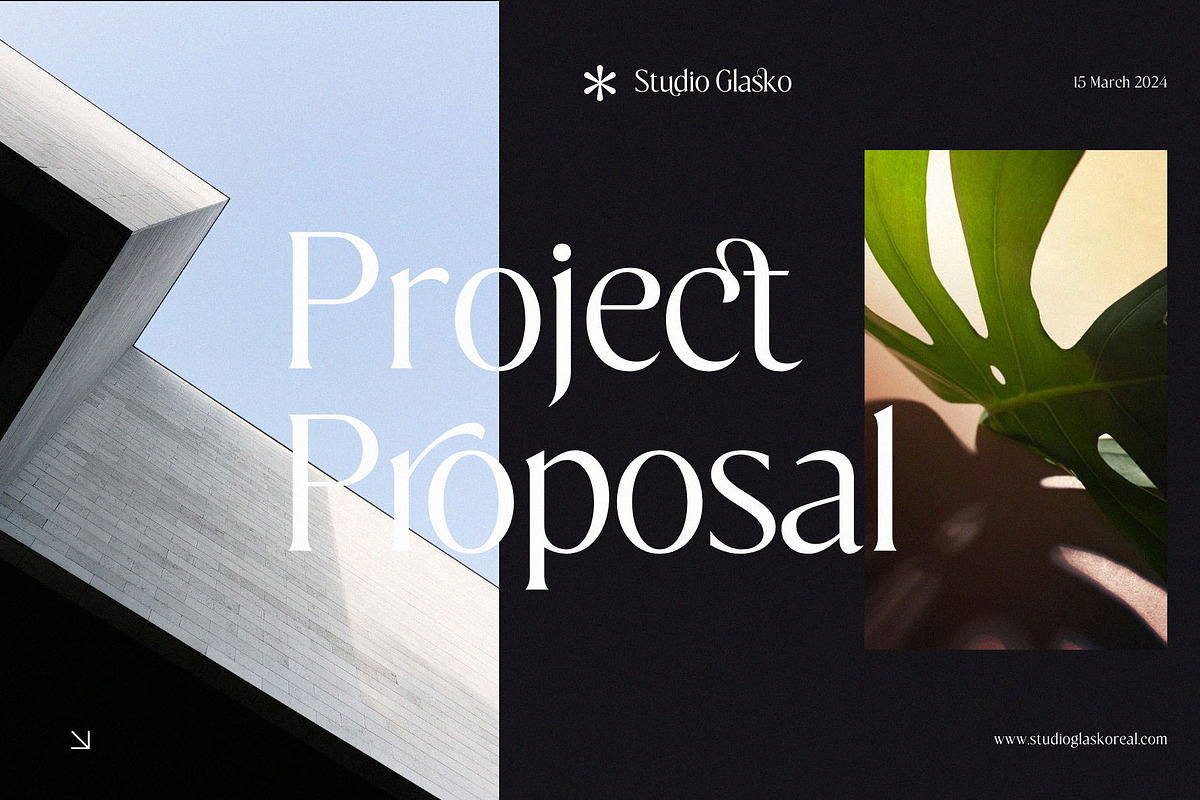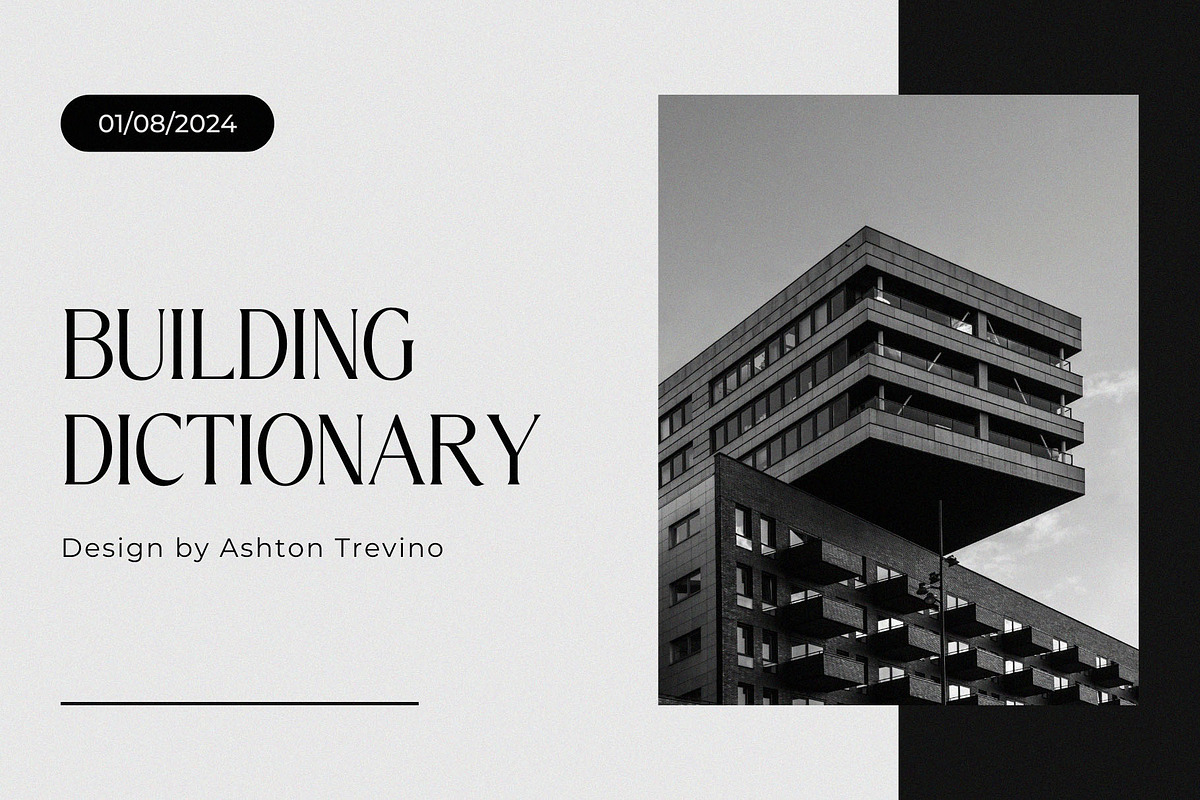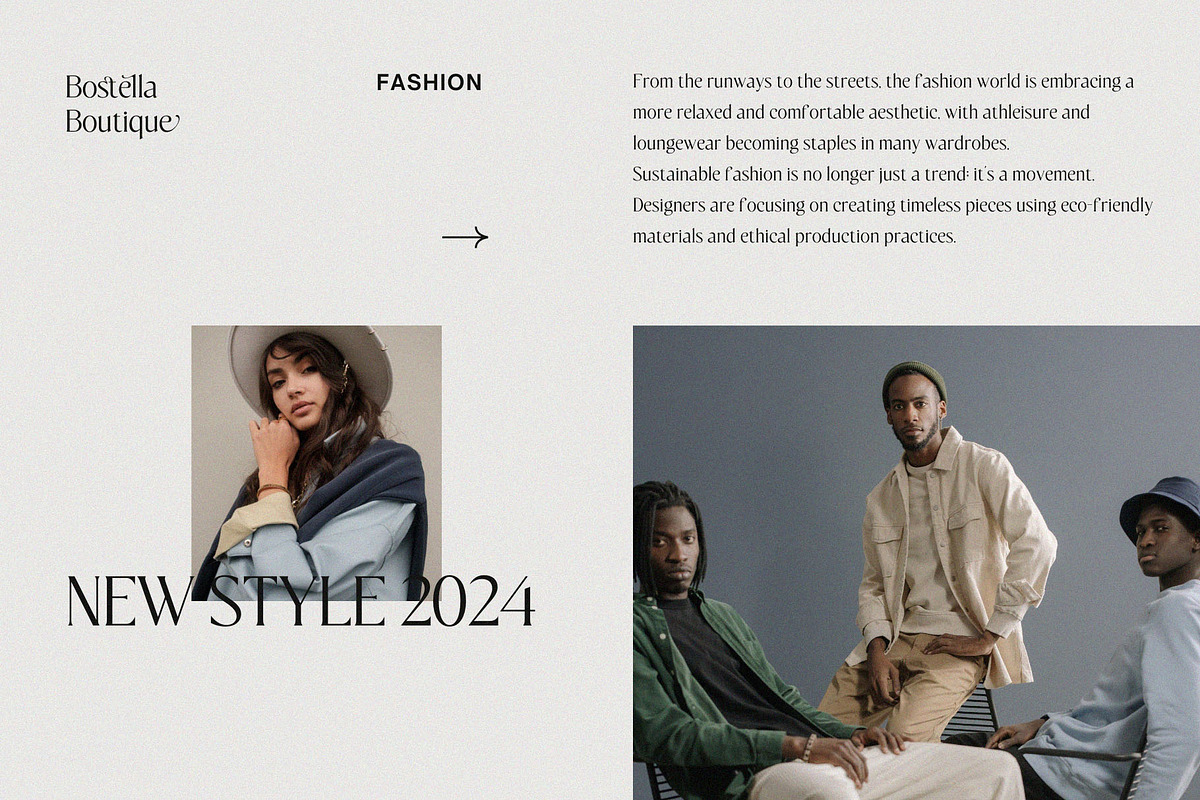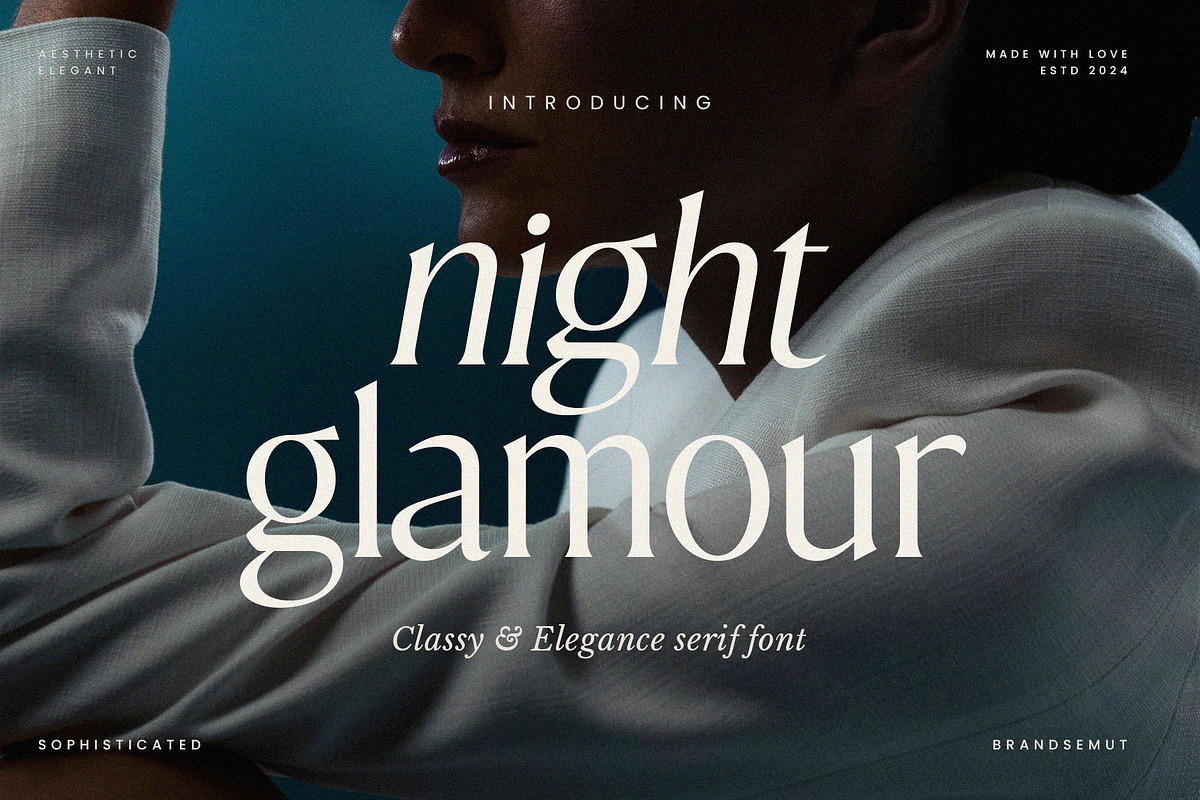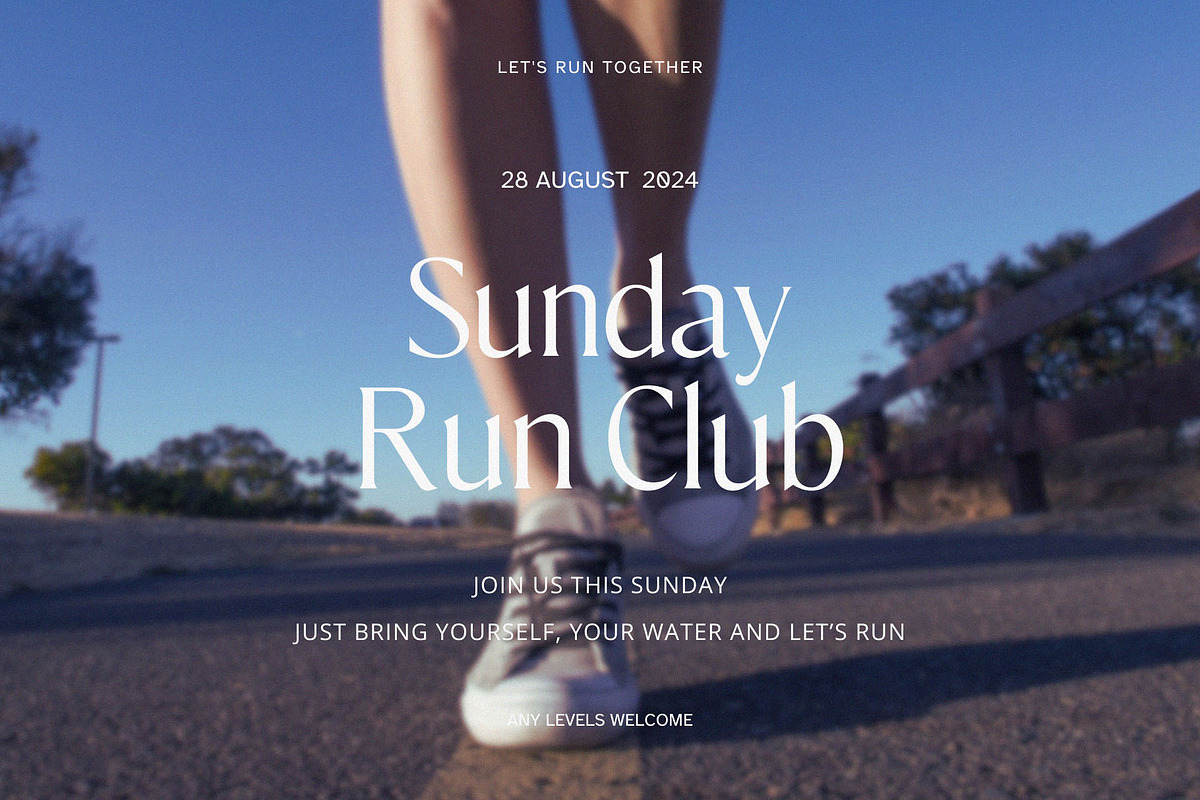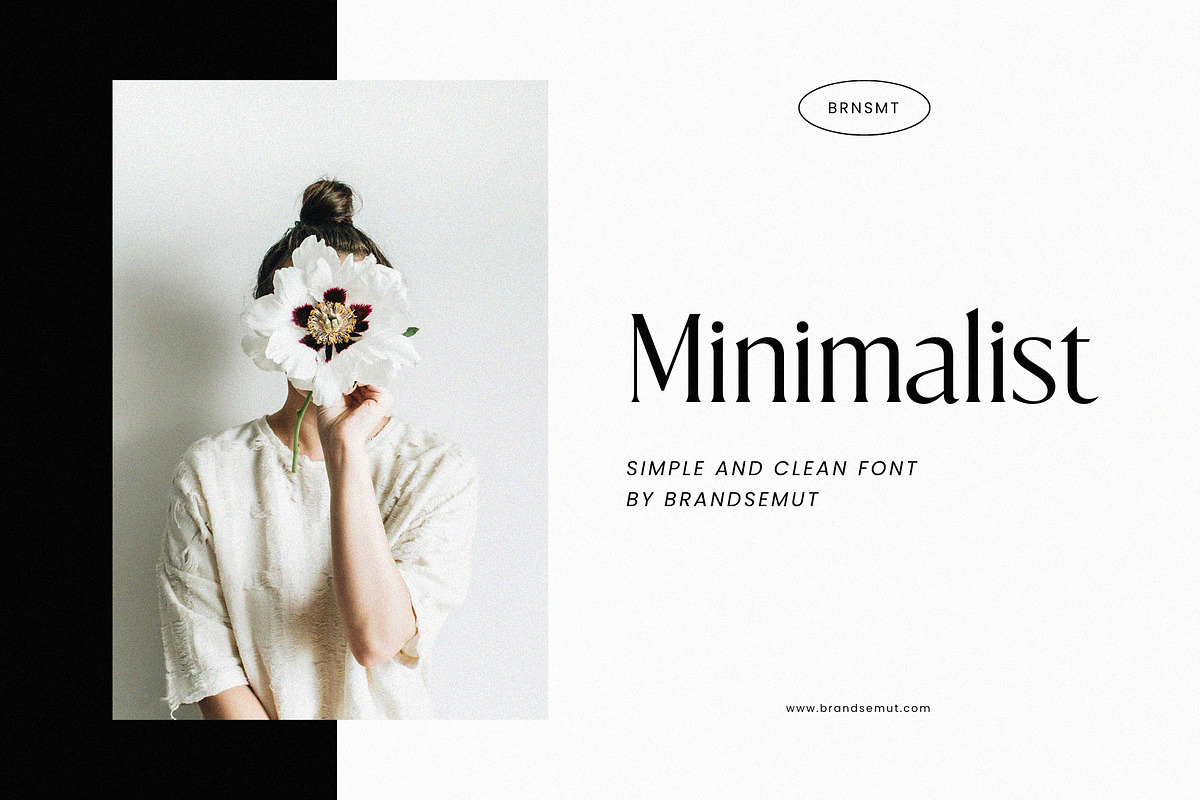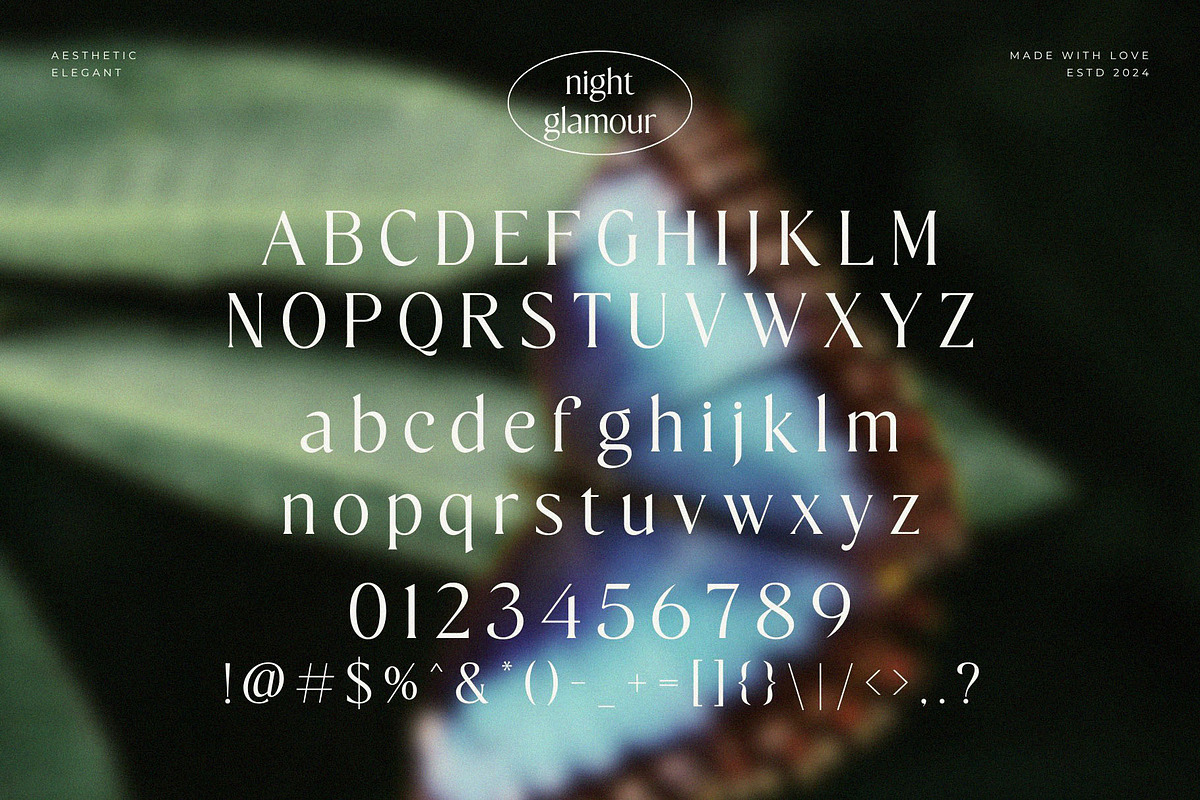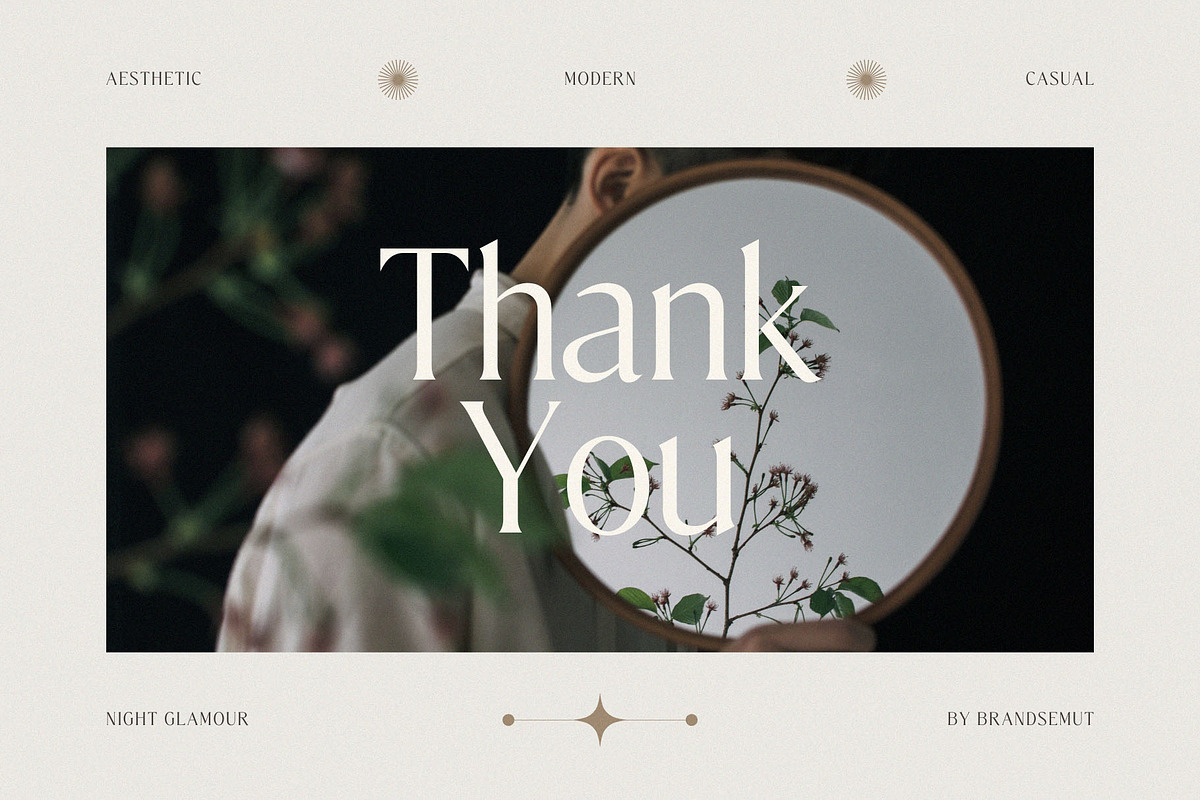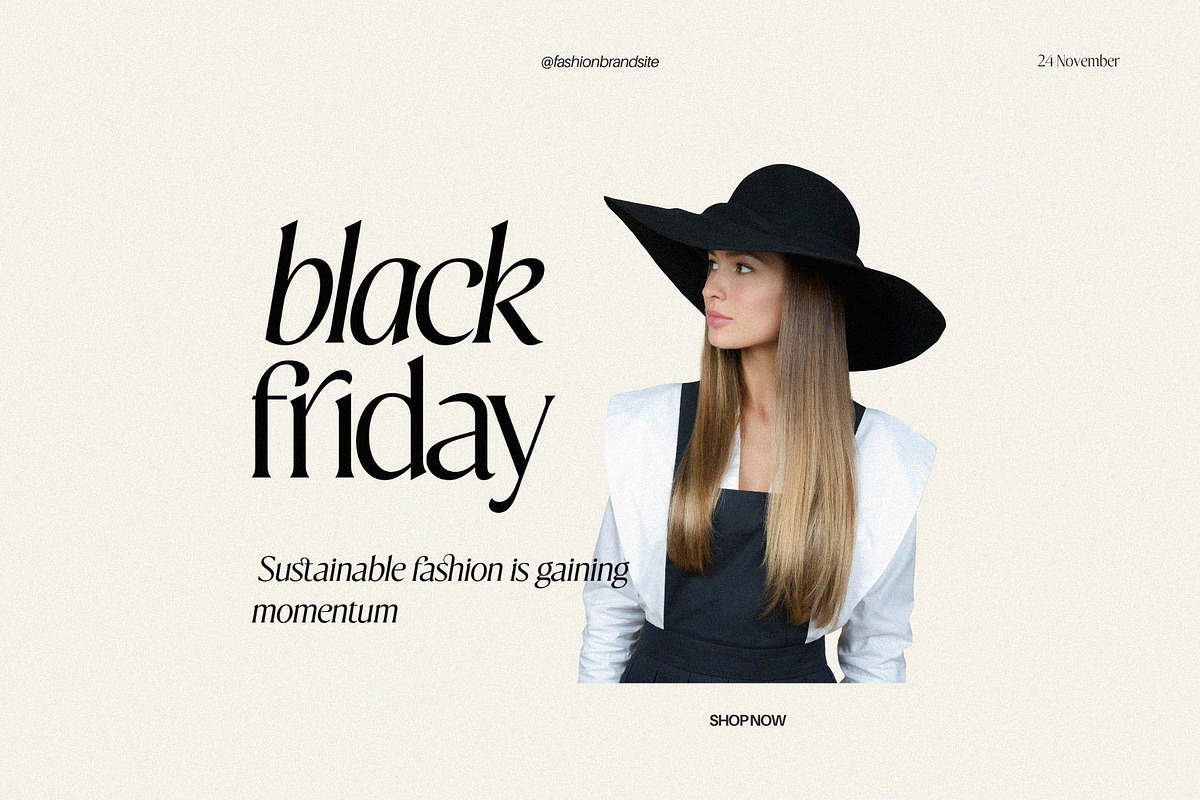
Night Glamour Classy Serif Font
Introducing Night Glamour Classy & Elegance Serif. Night Glamour is a stylish and modern display serif, best used as a display for headings, logos, branding, magazines, product packaging and invitations. Night Glamour equipped with Ligature and many Alternates and come with clean lines and smooth curves give any project an extra touch of class.